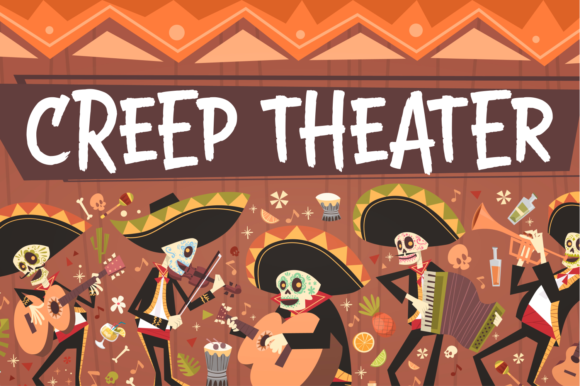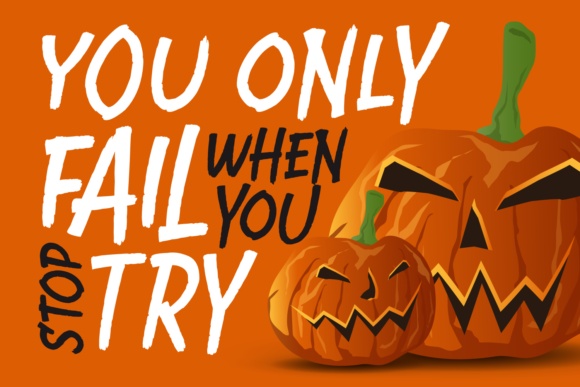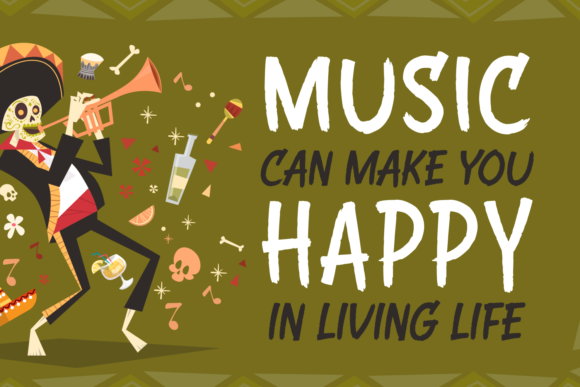
Tab 2 Font
About Tab 2 Font
Tab 2 is a unique and rough handwritten font with a powerful style. It’s the ideal font for turning any design project into an eye-catcher!